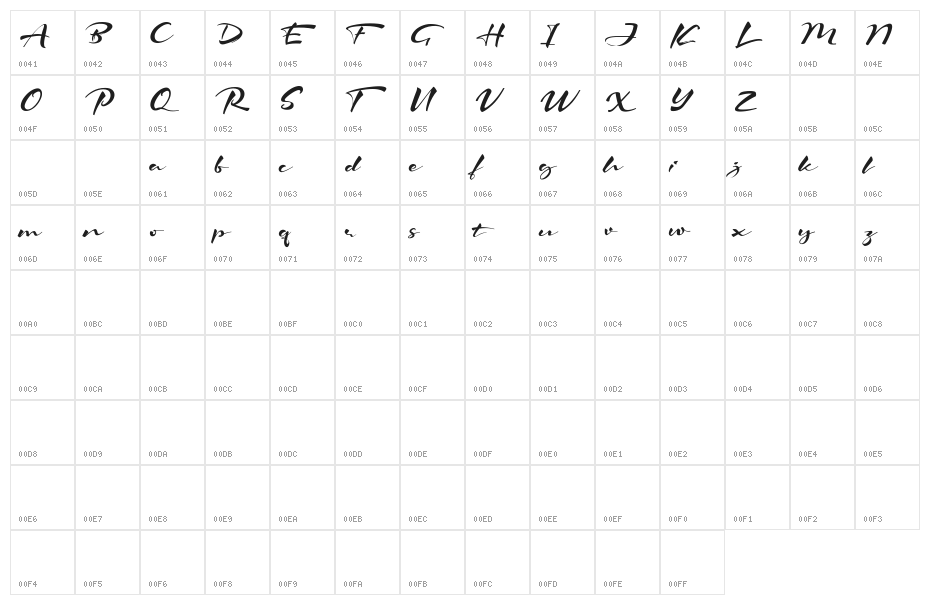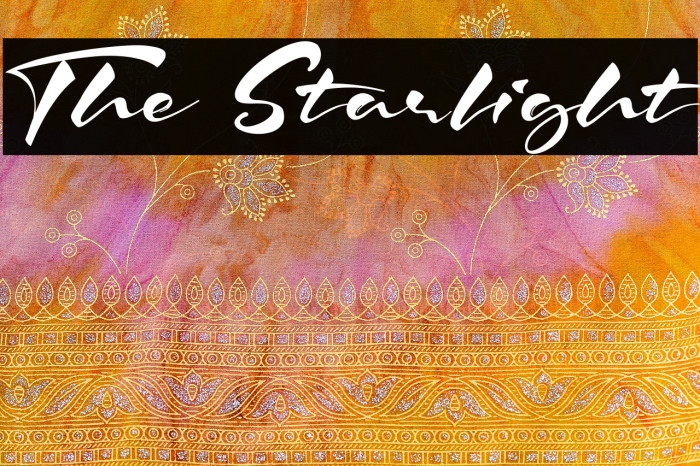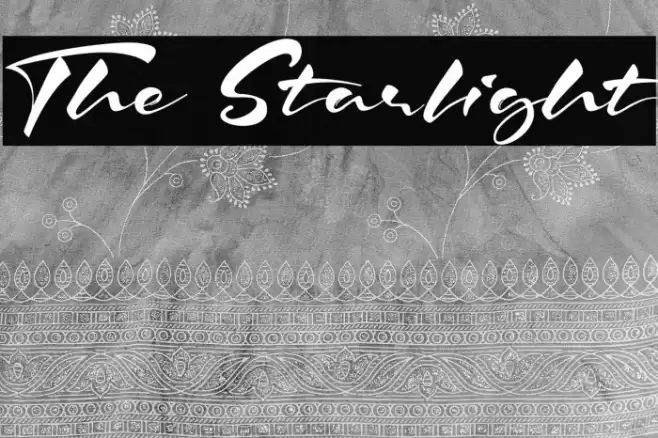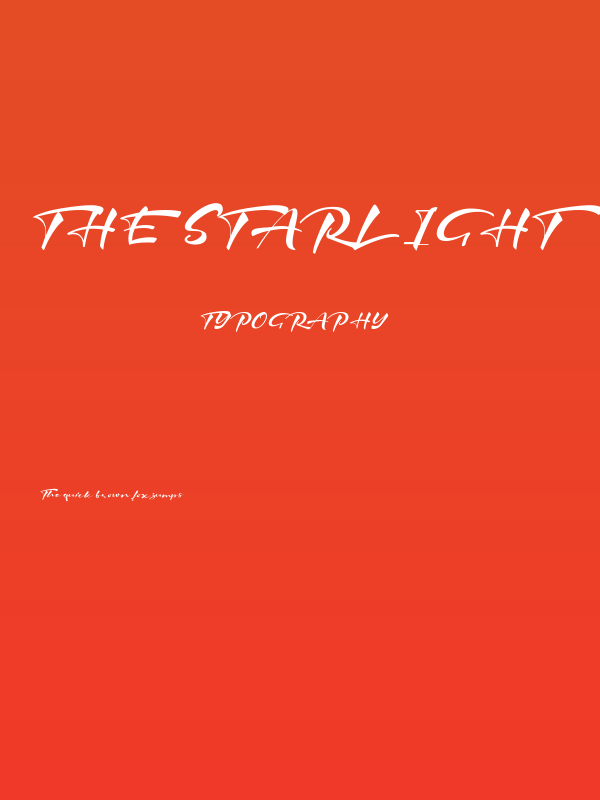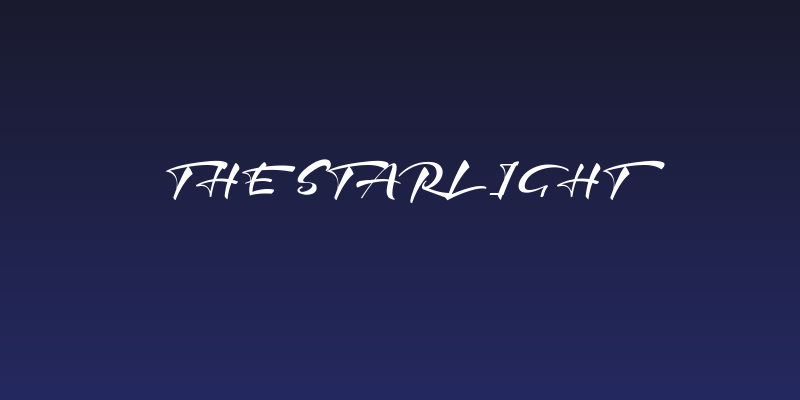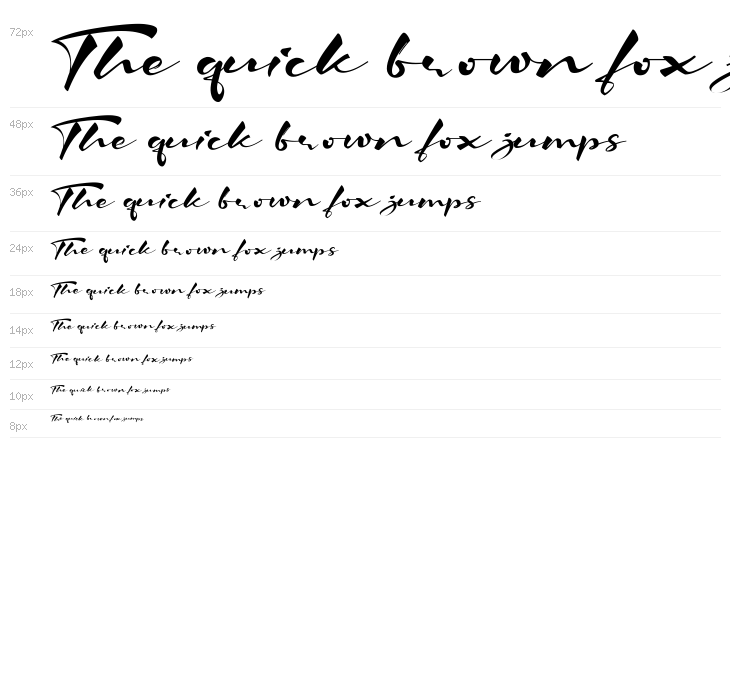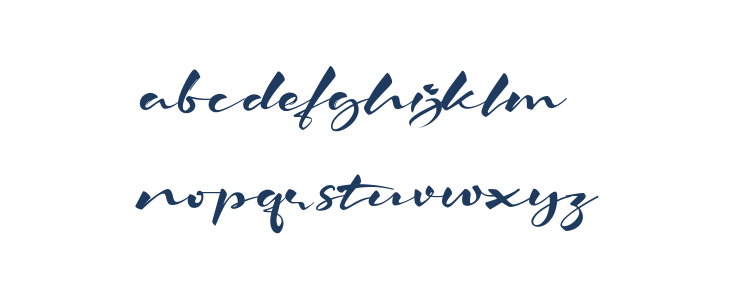
The Starlight Font
The Starlight Description
This elegant script font features fluid, sweeping strokes that convey a sense of grace and sophistication. The characters are connected in a cursive style, with varying stroke widths that add a dynamic and artistic flair. The uppercase letters are bold and prominent, while the lowercase letters maintain a consistent flow, creating a harmonious balance. The font's overall appearance is both modern and timeless, making it suitable for a variety of design applications. Its decorative nature is enhanced by the subtle variations in line thickness, which provide a sense of movement and energy.